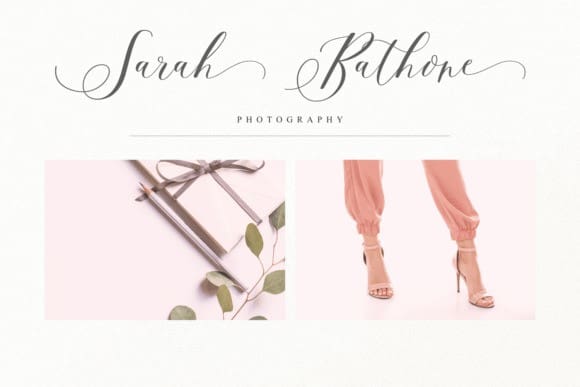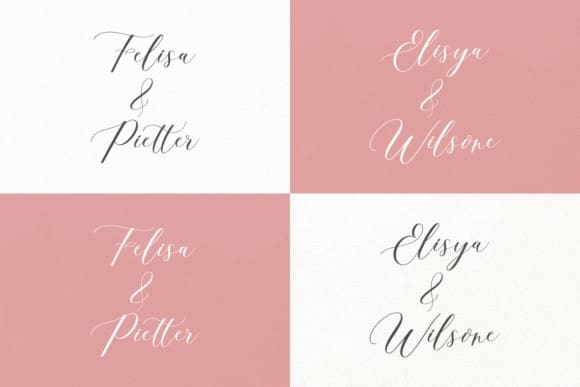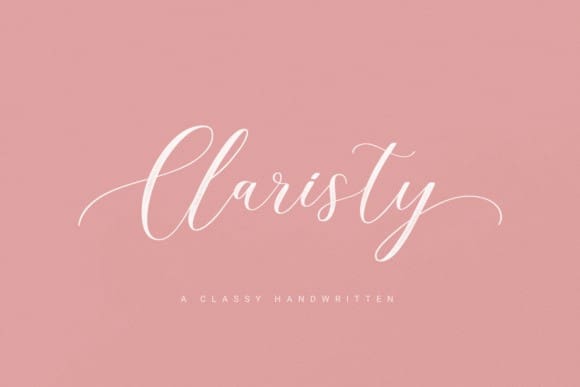
Clariesty Font
Clariesty Font is a classy handwritten font with an elegant style. Add it to your logos, labels, branding, invitations, websites, quotes, and more, and it will boost your designs and make them a true standout! This font is PUA encoded, which means you can access all of the glyphs and swashes with ease!